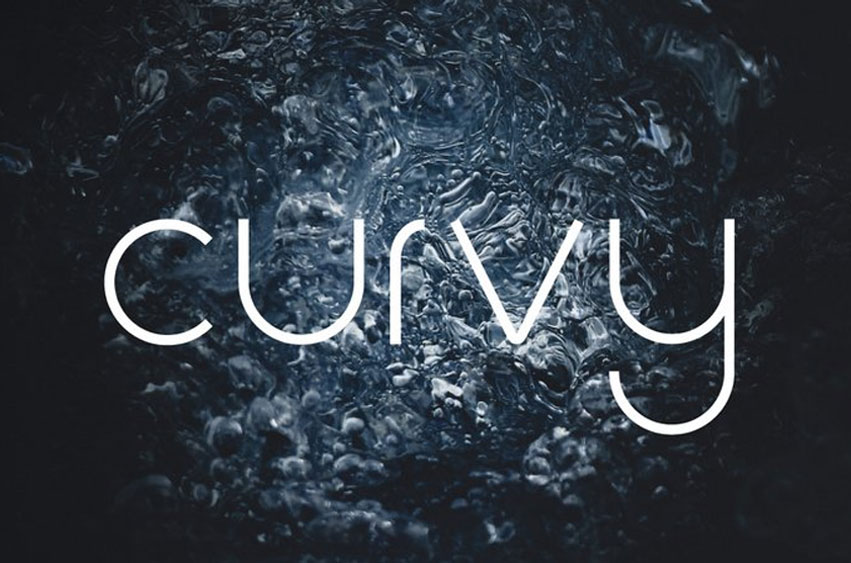
Curvy Font
Curvy Font is a Modular Typeface. lntroducing Curvy Font! Curvy designed and shared by Riccardo Mecheri.
Curvy is a new FREE typeface, inspired by rounded shapes. Curvy Font is a font that is perfect for your next project. Use it on invitations, notecards, shirts, and much more for that hand-lettered look.